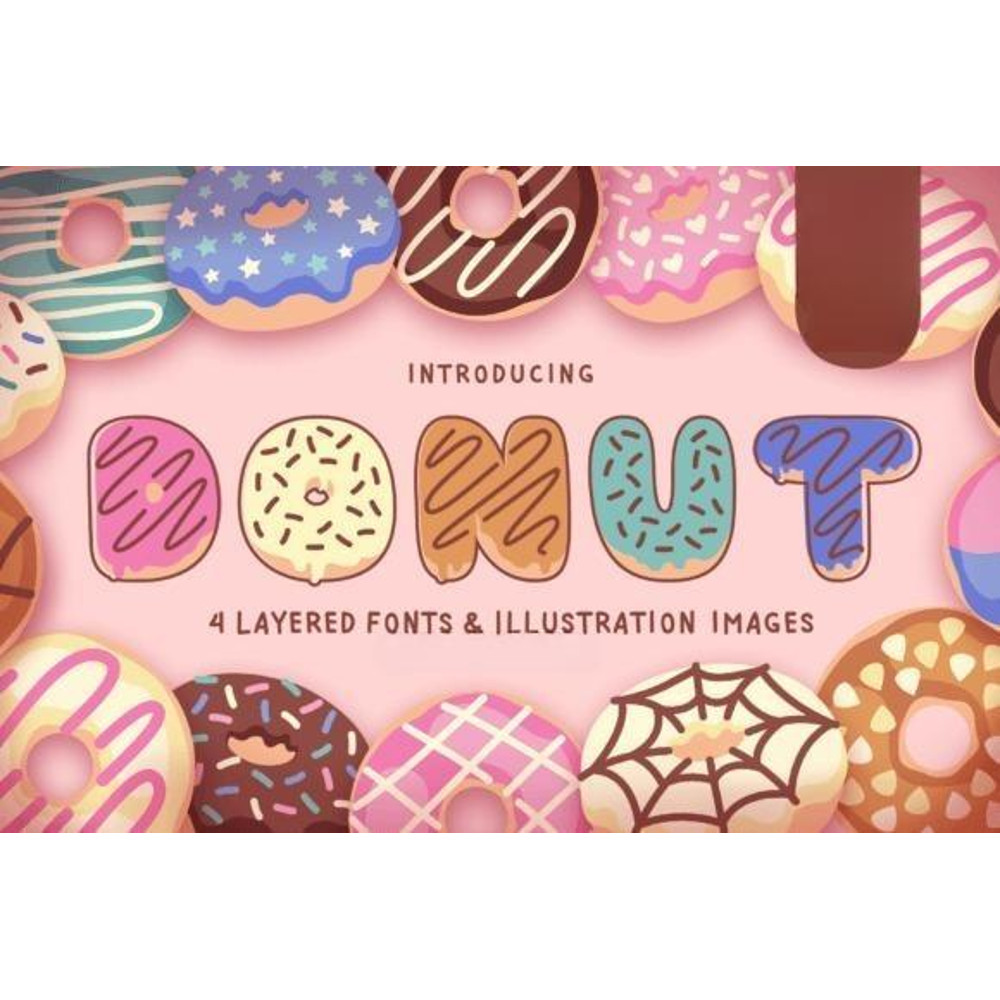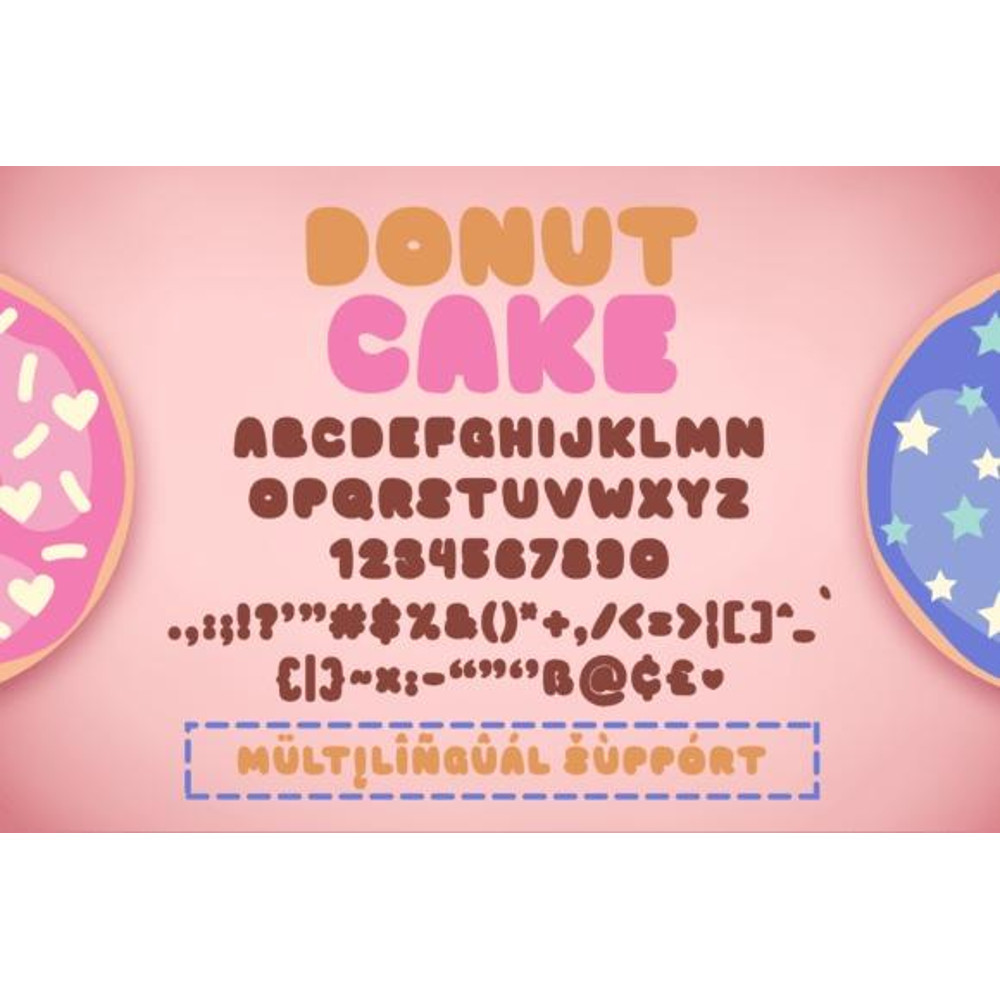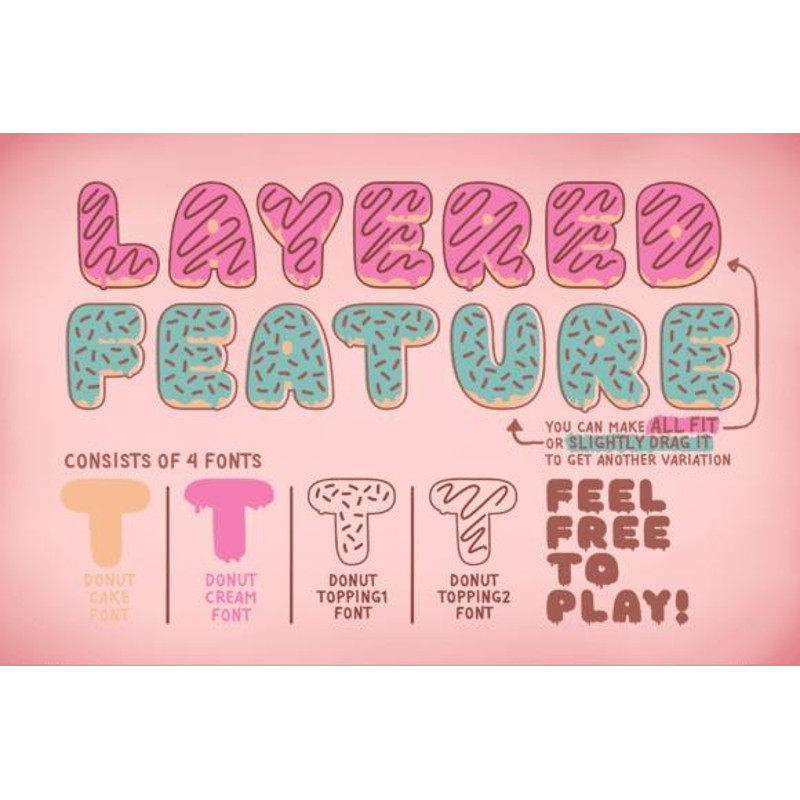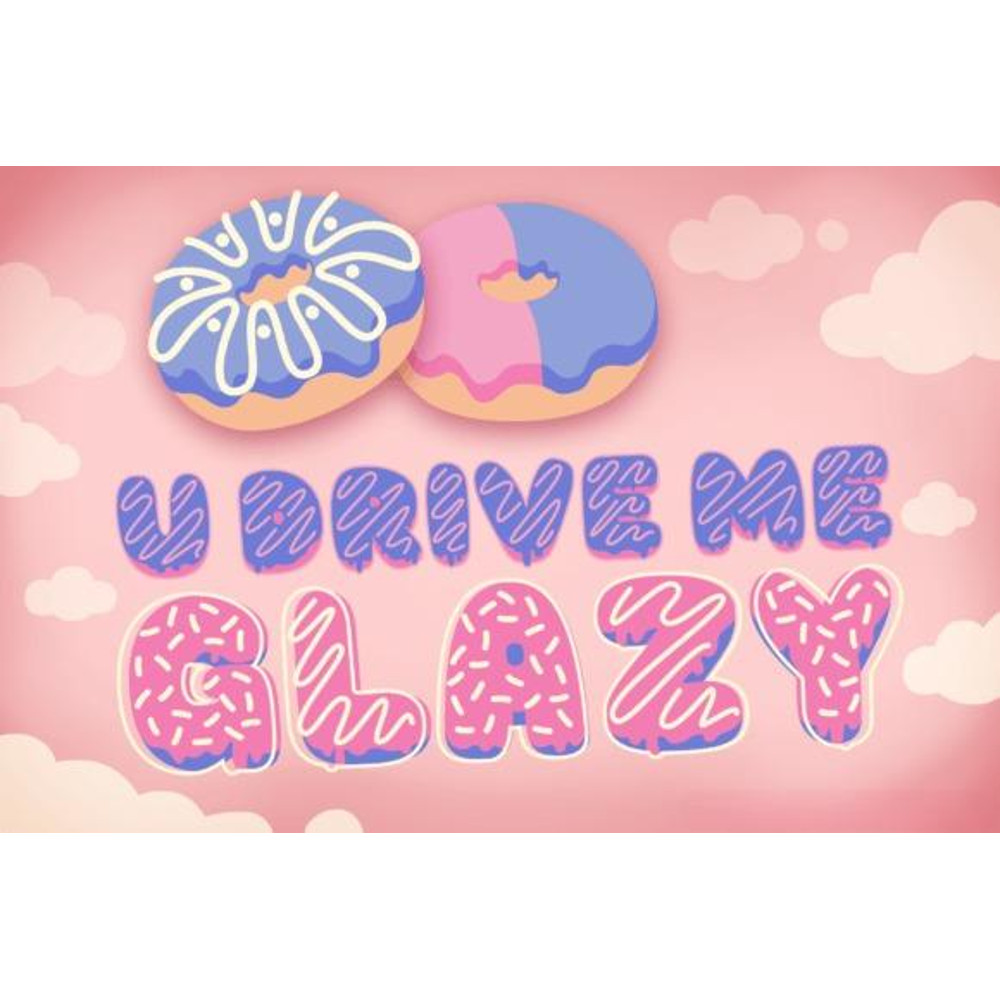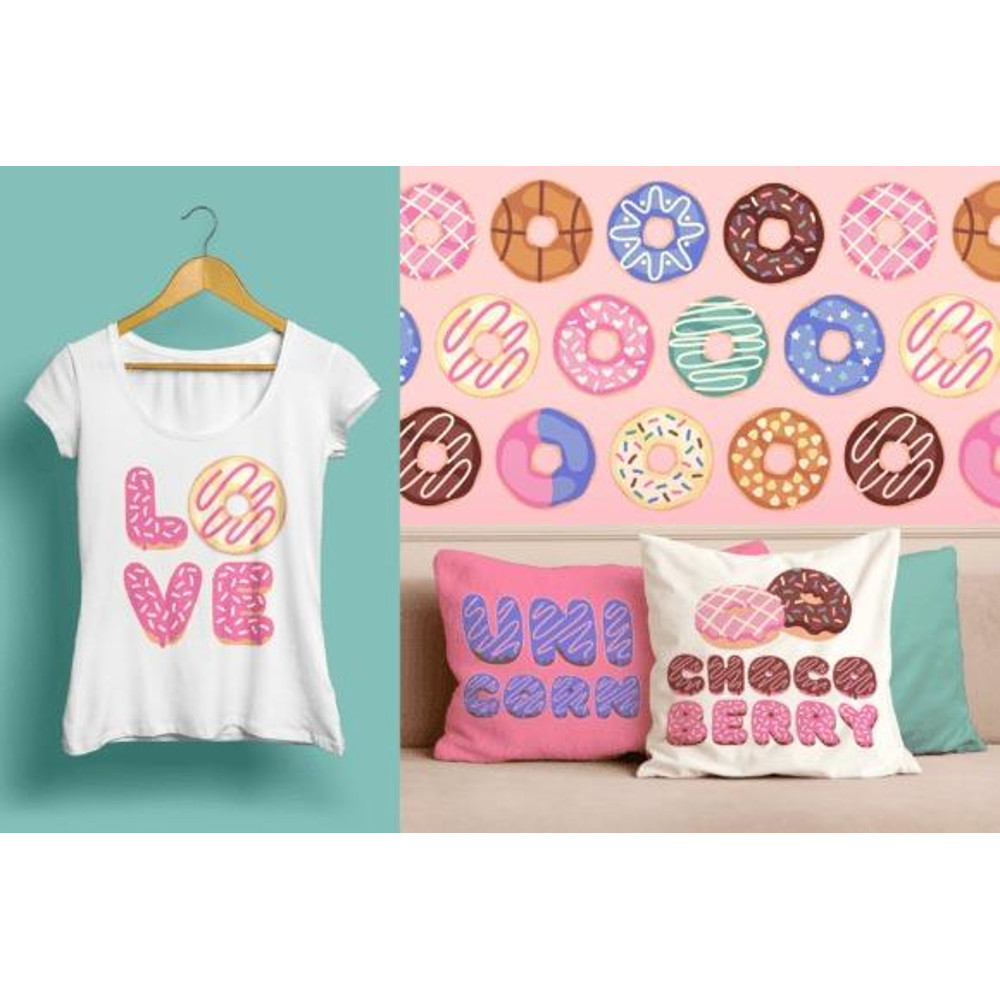
Donut Font
Introducing “Donut”, a delectable display typeface that brings the sweet and playful world of donuts to your design projects. Each letter is crafted with a unique donut design, from classic glazed rings to whimsical sprinkled shapes. Perfect for bakery logos, food packaging, and any design that needs a tasty twist.